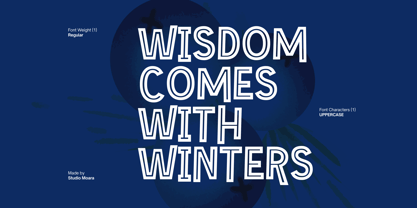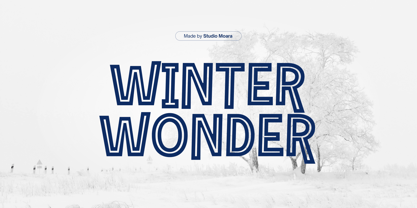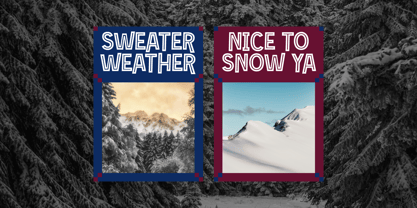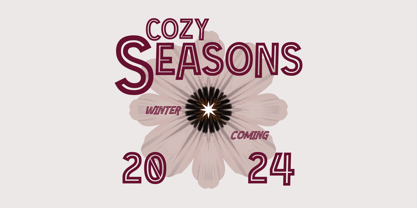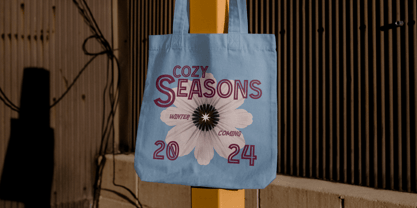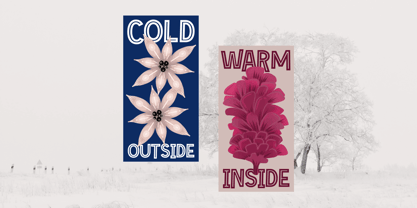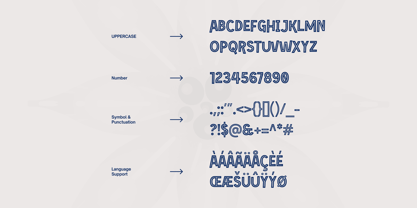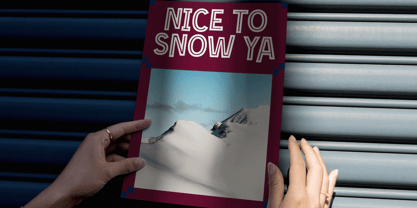
Winter Wonder
by Coasta
The Winter Wonder Font Family was designed by Panca Hasan and published by Coasta. Winter Wonder contains 1 styles. More about this family
Introducing Winter Wonder, the Christmas Sans Font that will infuse your holiday designs with warmth and festive charm. Embody the spirit of the season with this versatile and elegant typeface. Its clean lines and playful style create a delightful contrast, making it perfect for greeting cards, invitations, gift tags, and more. Whether you're crafting a winter wonderland or spreading Christmas cheer, Winter Wonder is the essential font to make your projects shine with that special holiday magic.
Designers: Panca Hasan
Foundry: Coasta